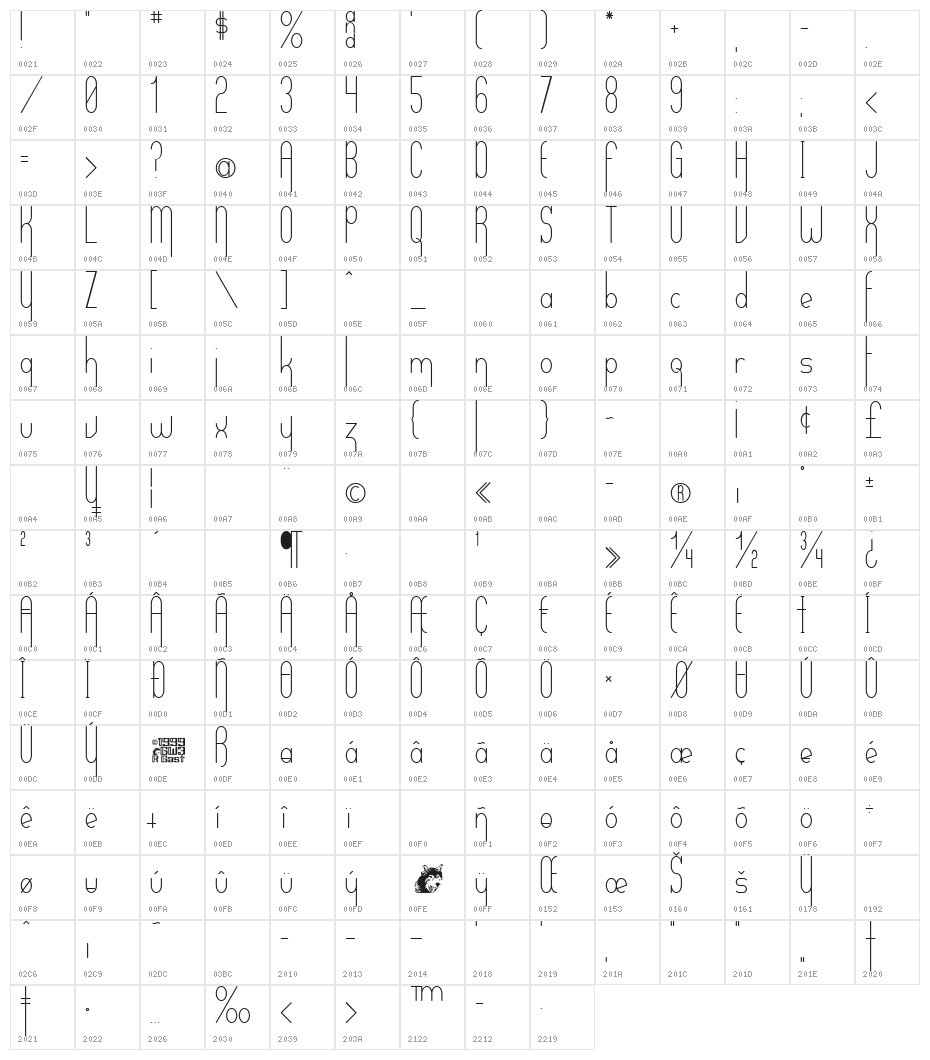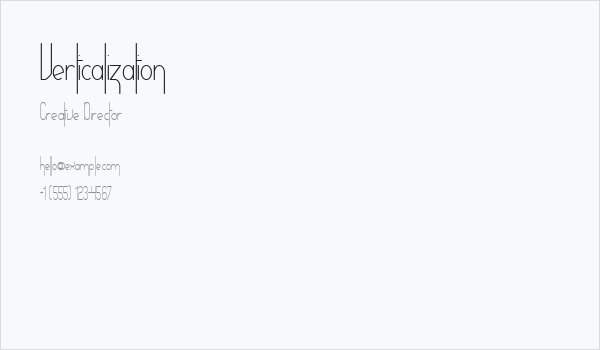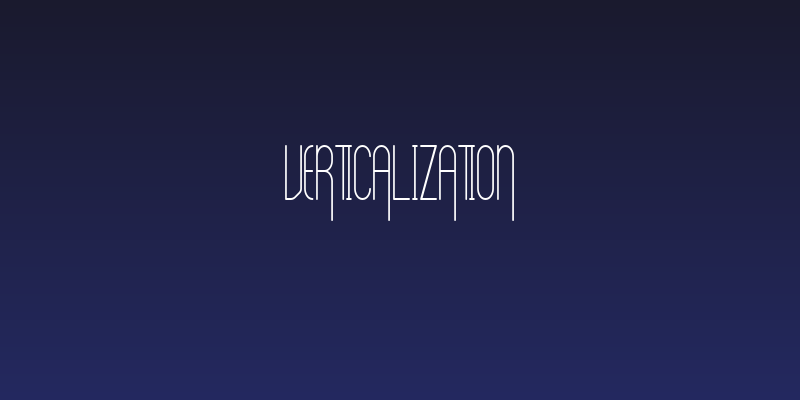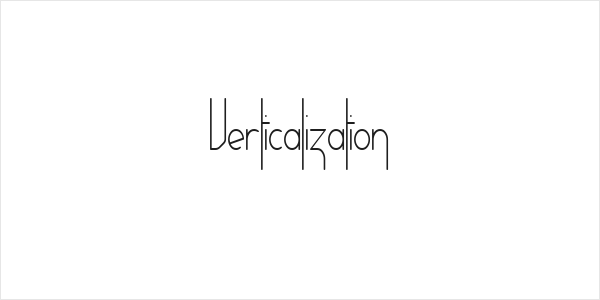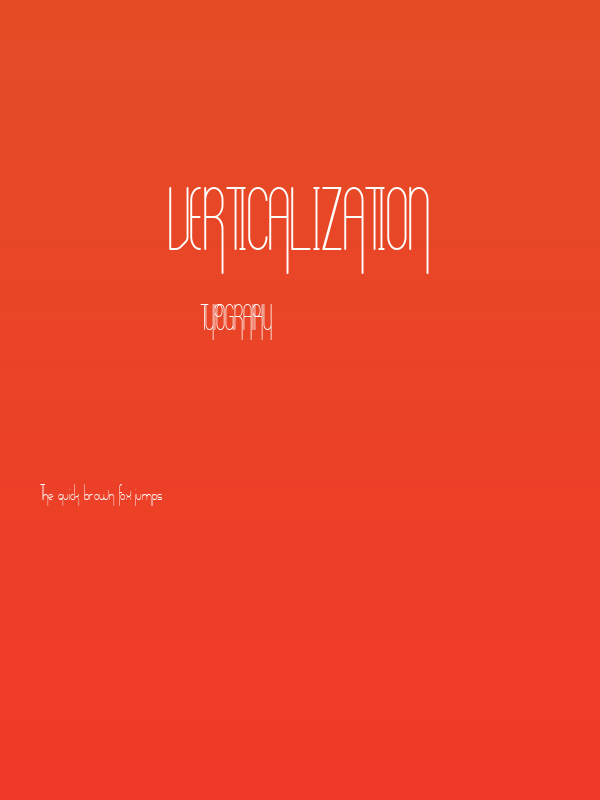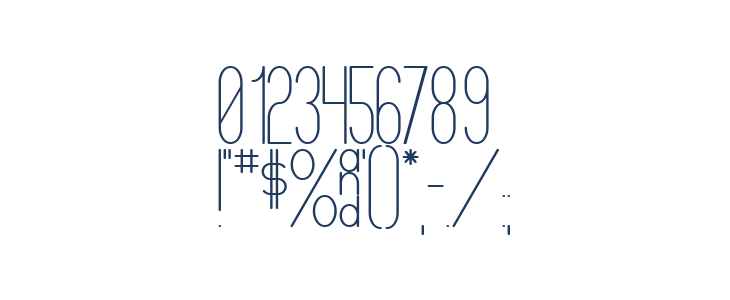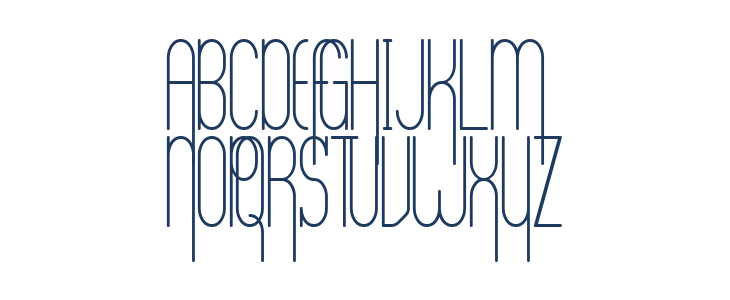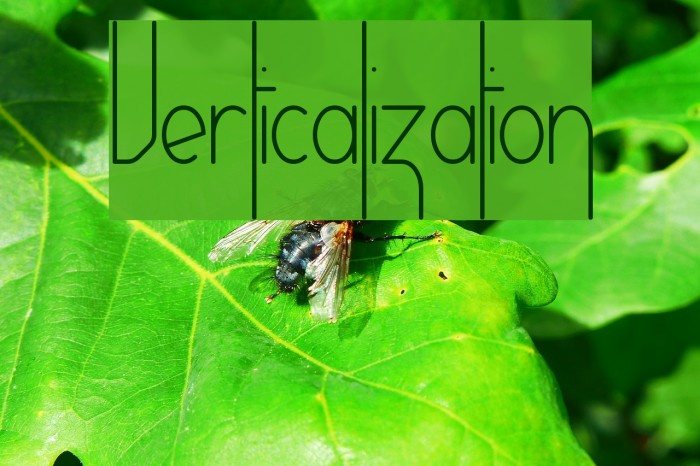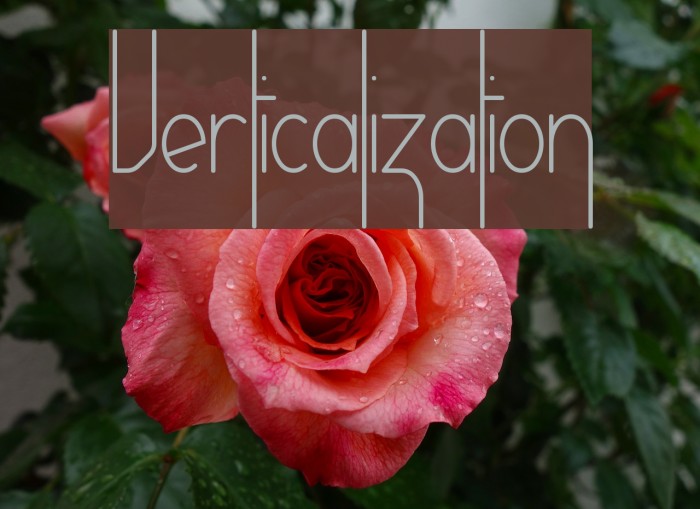
Verticalization Font
Verticalization Description
This font features an ultra-condensed and elongated design, emphasizing verticality with its tall, narrow letterforms. The strokes are consistently thin, creating a sleek and modern appearance. The uppercase and lowercase letters maintain a uniform height, contributing to its distinctive style. The numerals and special characters follow the same vertical emphasis, ensuring a cohesive look across all glyphs. This font's minimalistic approach and high legibility make it suitable for contemporary design projects.
| Proposed Projects | Ideal for modern branding, fashion magazines, posters, and minimalist design projects where a unique and stylish typeface is desired. |